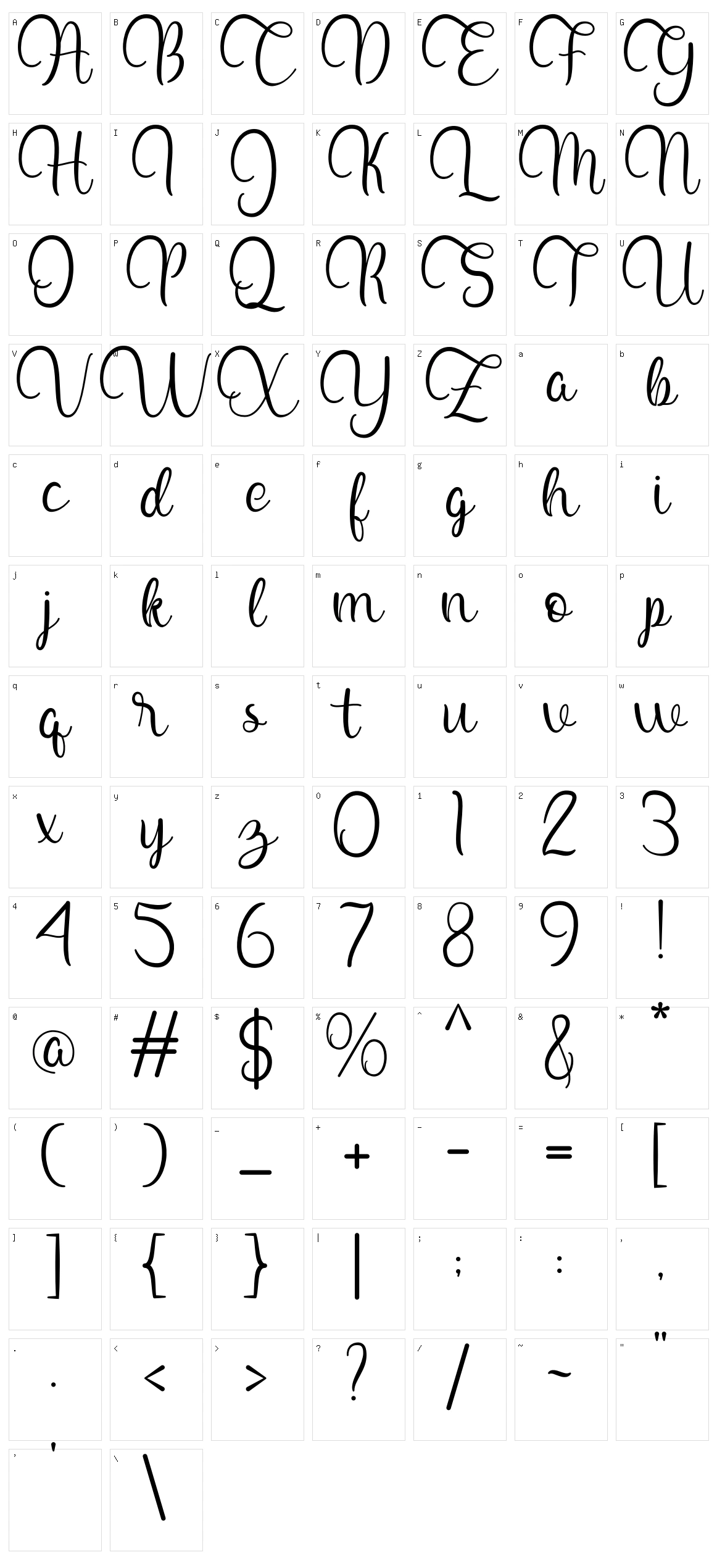
The free font Mozarella is carefully designed by Doehantz Studio, showcasing a thoughtful balance of creativity and usability and falls under the Script font style. When you download the ZIP file, it contains only 114.27 KB of font files, making it lightweight and quick to download. Please review the license details below to understand permitted usage and distribution rights. If license information is not available, we recommend using this font for personal projects only or contacting the author directly for commercial usage permissions.